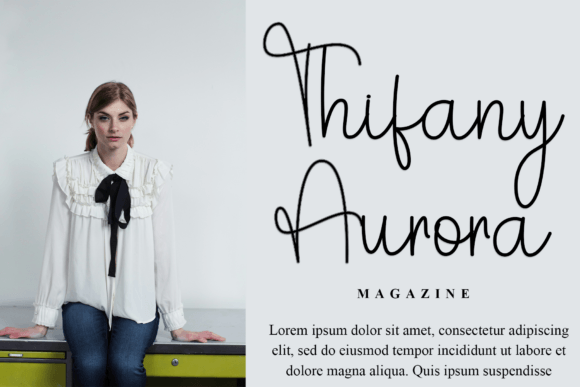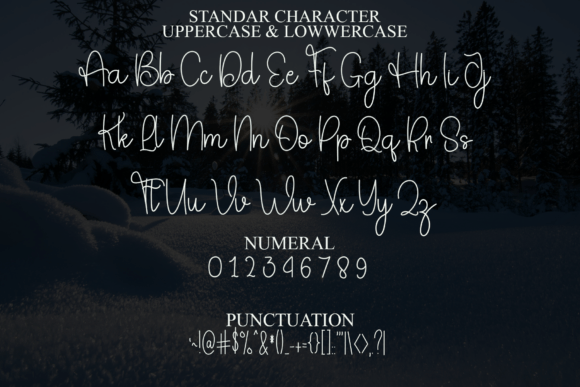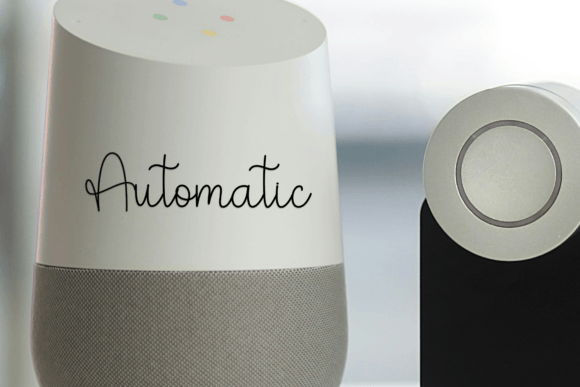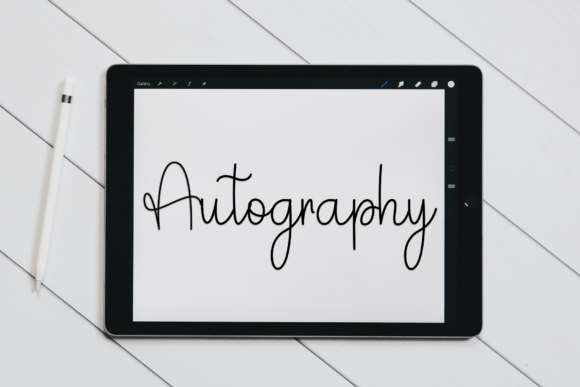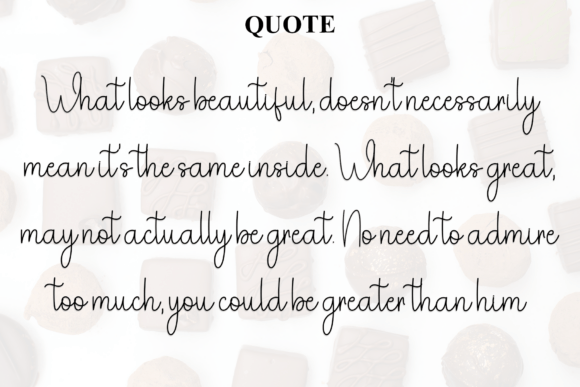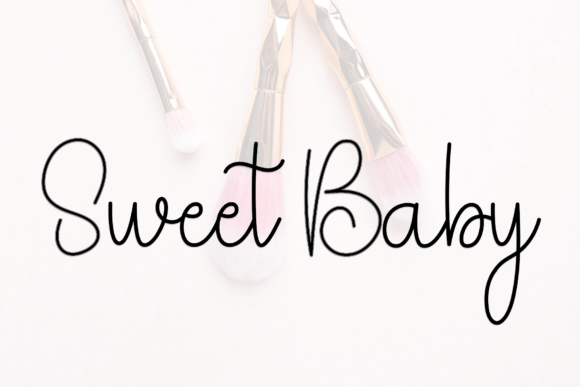
Introduction to Beauty Mindset Font
As a designer, there’s nothing quite like the thrill of brainstorming a new project. You’re scrolling through design resources, searching for the perfect font to give your creative idea the edge it needs. And then, you stumble upon it – a font so elegant, so dainty, that it makes your heart skip a beat. Welcome to the world of Beauty Mindset Font, a high-quality, free download that’s about to revolutionize your design game.
| 📌 Product Name | Beauty Mindset Font |
| 👤 Author | PiPi Creative |
With its sweet and delicate swashes, Beauty Mindset Font is the perfect addition to any design project. Whether you’re crafting a beautiful letterhead, a stunning title, or a set of exquisite stationery, this font is sure to impress. And the best part? Its transparent background makes it incredibly versatile, allowing you to overlay it seamlessly with any image or texture.
Key Features of Beauty Mindset Font
- Unique and modern design suitable for creative projects and personal branding.
- Perfect for designers and artists looking to create a consistent and cohesive brand identity through their work.
- Can be used for a wide range of creative projects, from digital art to print materials, and everything in between.
Honest Review: Beauty Mindset Font
I recently stumbled upon the Beauty Mindset Font, and I must say it’s been a game-changer for my creative projects. The font is a beautiful combination of elegant and modern elements that truly stand out. ✨
- High-quality design: The font is well-crafted and displays perfectly on both light and dark backgrounds.
However, there are a few limitations I’ve noticed: ⚠️
- Limited font weights: While the font has a good selection of styles, I would have liked to see more options, especially for bold and italic.
- Not suitable for small text: The font is perfect for headings and titles, but it can be a bit challenging to read in smaller sizes.
Overall, I’m thoroughly impressed with the Beauty Mindset Font. It’s a fantastic design resource that can elevate any creative project. While it has its limitations, I believe it’s worth the download, especially considering its free price tag.
Tips for Getting the Most Out of the Beauty Mindset Font
Use the Beauty Mindset Font in conjunction with a transparent background to create eye-catching graphics. Experiment with different font sizes and styles to add visual interest to your designs.
Common Use Cases for the Beauty Mindset Font
The Beauty Mindset Font is perfect for creating social media graphics, blog posts, and marketing materials. Its high-quality aesthetic and transparent background make it an excellent choice for creative projects.